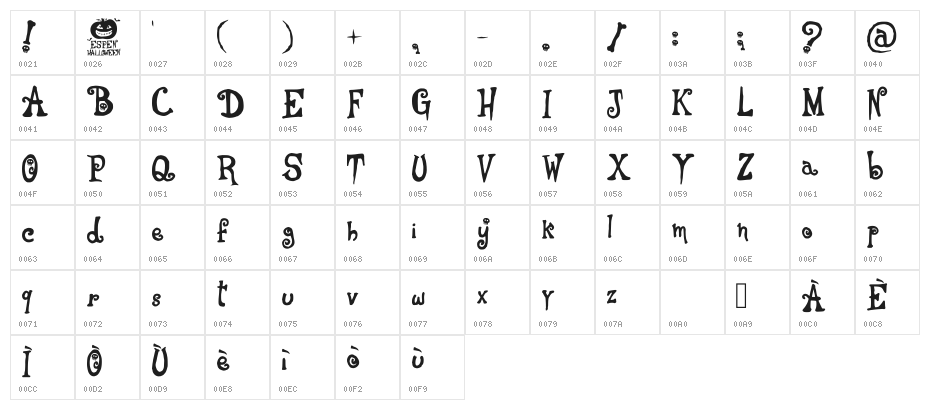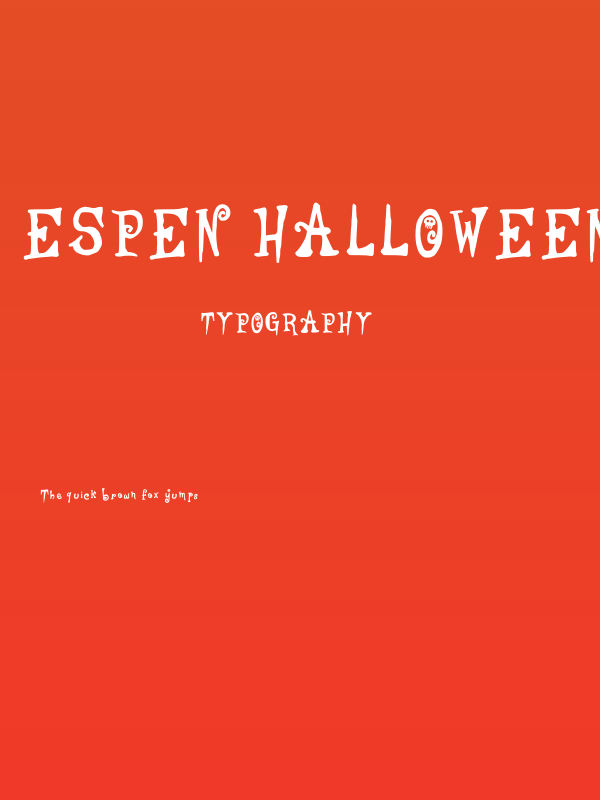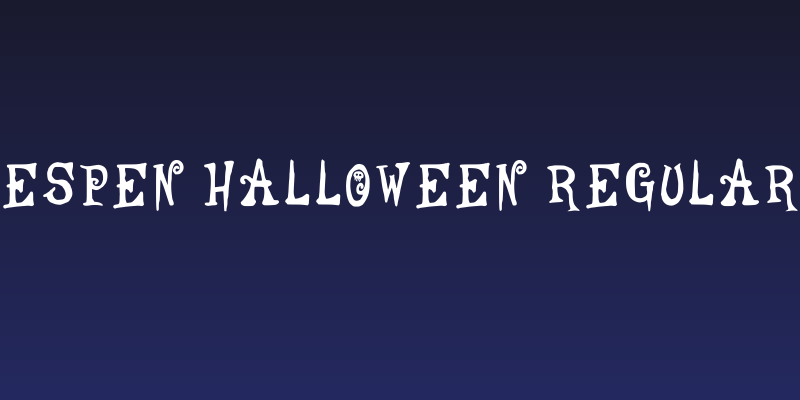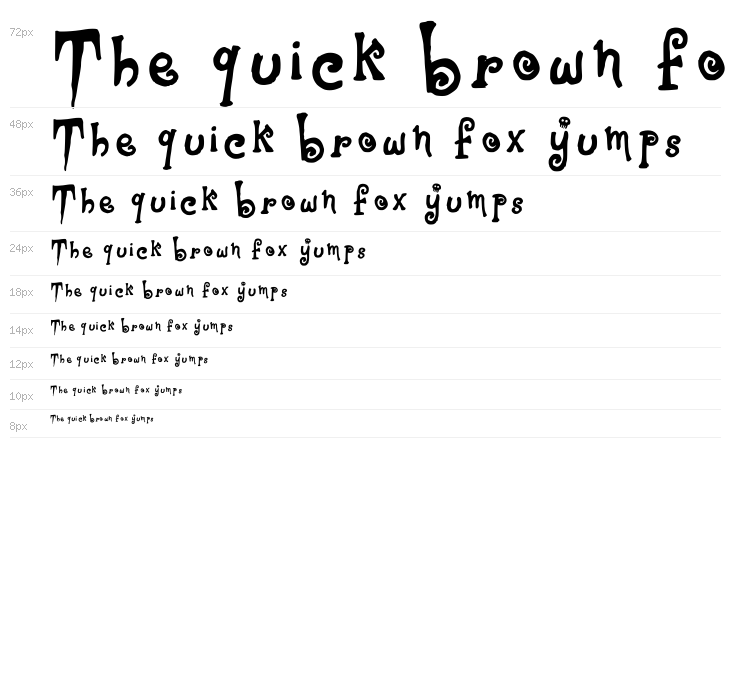
Espen Halloween Regular Font
Espen Halloween Regular Description
This font exudes a playful yet eerie Halloween vibe, characterized by its quirky and irregular letterforms. Each character seems to have a personality of its own, with some letters featuring unique embellishments like spirals or skull motifs. The strokes are uneven, adding to the whimsical and spooky aesthetic. The font maintains a hand-drawn appearance, enhancing its charm and thematic appeal. It is perfect for designs that require a touch of the macabre or a festive Halloween spirit, making it ideal for seasonal projects, party invitations, or themed merchandise.
| Use Case | Headlines, Logos, Themed Designs |
| Proposed Projects | Halloween invitations, themed merchandise, party decorations, spooky posters. |